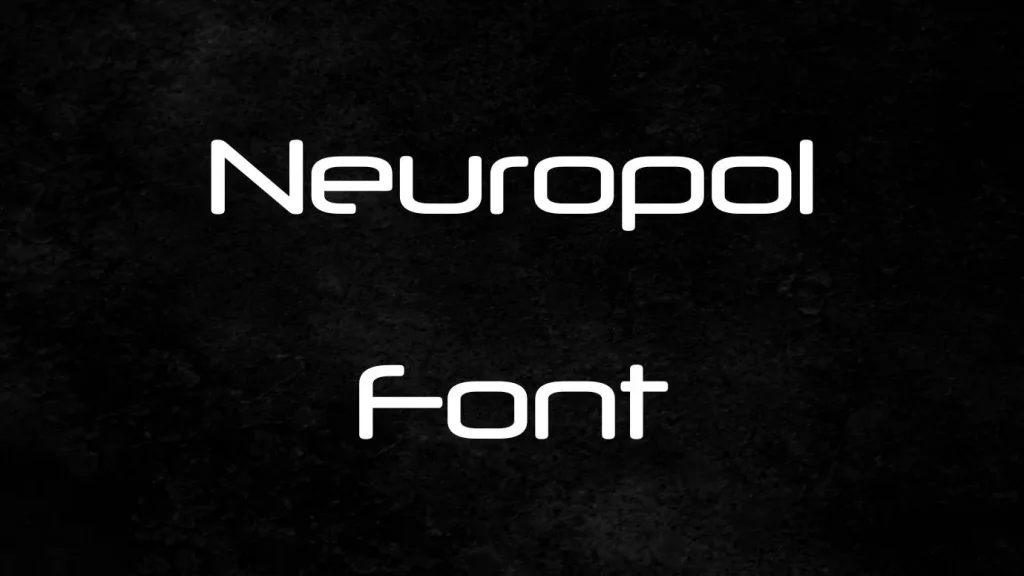
Typodermic Fonts published Techno text style is a nice and attractive style. Neuropol font has a single regular style with simple characters and a sophisticated layout. The exciting feature of this font is that it may be created online using a tool that was automatically generated.
Tips to Utilize the Neuropol Font
The creation of banners, logos, birthday cards, eye-catching designs, printing, advertising, and other items is possible with this style. Users can make, posters, and post on social media designs too. To create a unique and eye-catching design, you should use this font in combination with kollektif font.
The best uses for this contemporary and fashionable typeface are various formal contexts like glossy magazines, printing jobs, and newspapers. You may create stunning themes for your websites by using sophisticated graphic layouts.
Both printed and digital marketing is appropriate for this design. It can be utilized for a variety of display applications. It can be applied to a variety of headings and titles.
This typeface has a lot of classic features and characteristics. It contains 256 unique glyphs and also available 263 characters.
Yes, why not this typeface is effective for business projects. In most business sectors this typeface is commonly used.
Surely, for your web designs, this stylish typeface is the best choice. You can utilize this texture in all web-type projects.